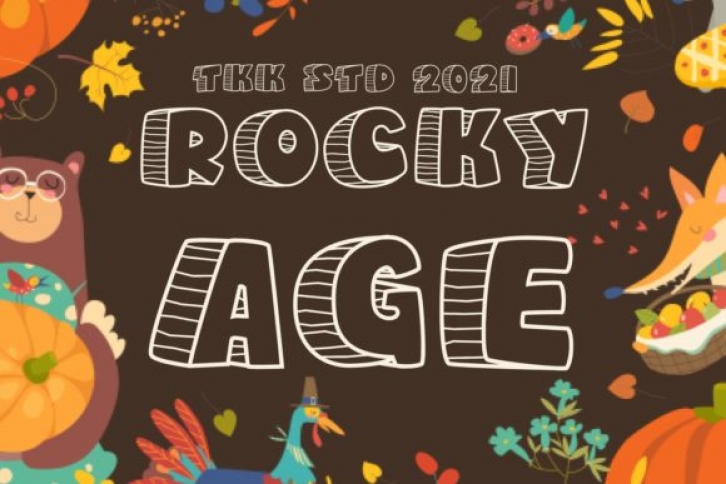
Rocky Age is a cool, 3D display font. Whether you use it for cartoon related designs, children games or just any creation that requires a lovely touch, this font will be an amazing choice.